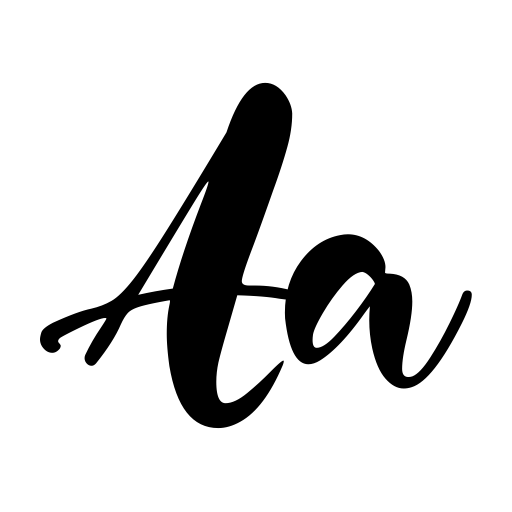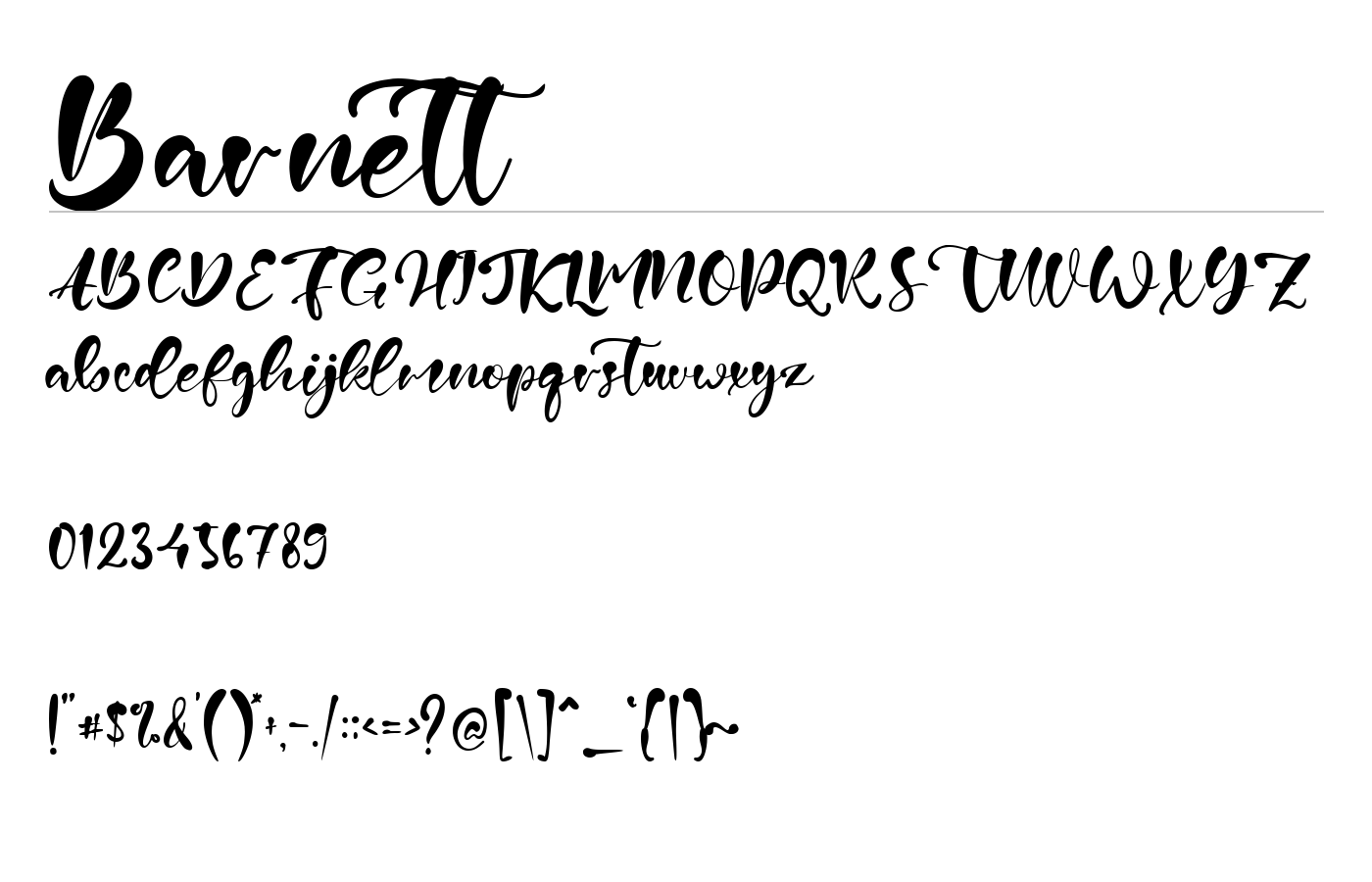
Barnett is a lively script font with strong brushstroke influence, featuring bold, fluid letterforms that convey a sense of creativity and warmth. Its playful yet elegant style makes it ideal for branding, invitations, and packaging where a personal, handcrafted feel is desired. This font shines best in display uses like logos and headlines, adding a vibrant, artistic touch to any design.
| Font family | Barnett Font |
| Release date | 2021-12-28 |
| Designer | VZtype |